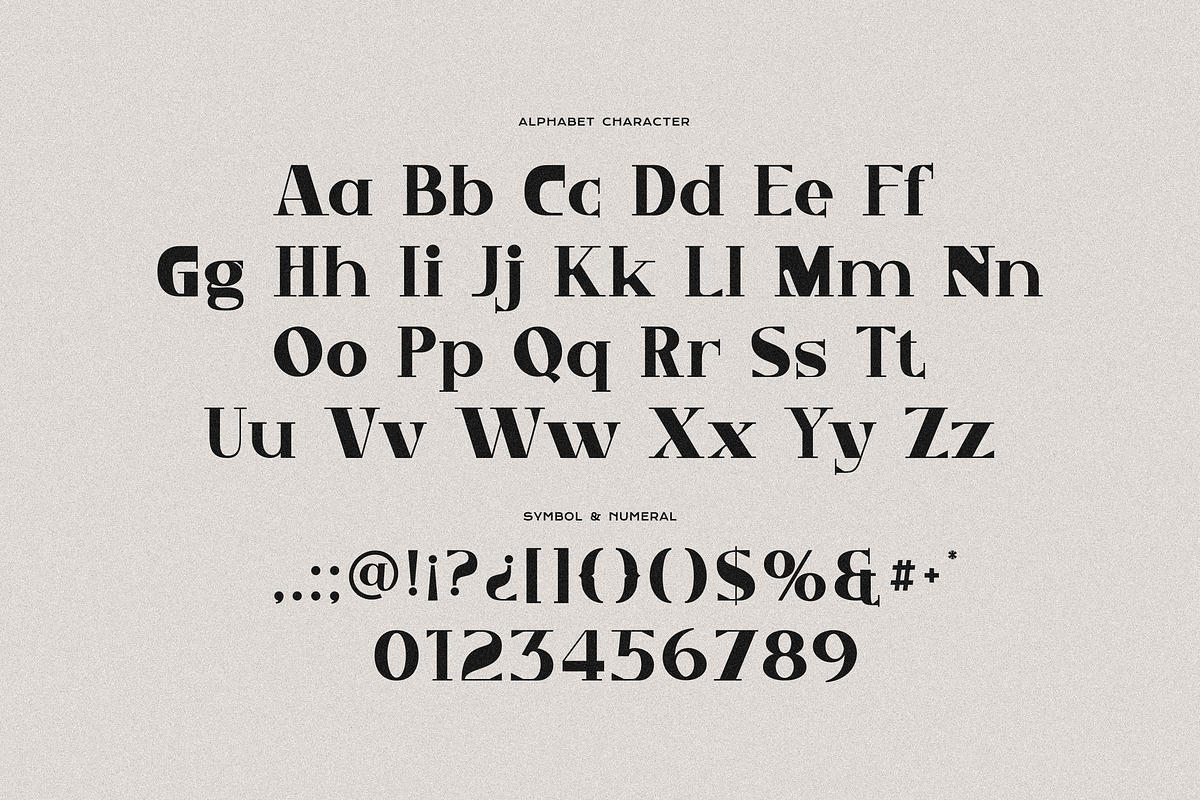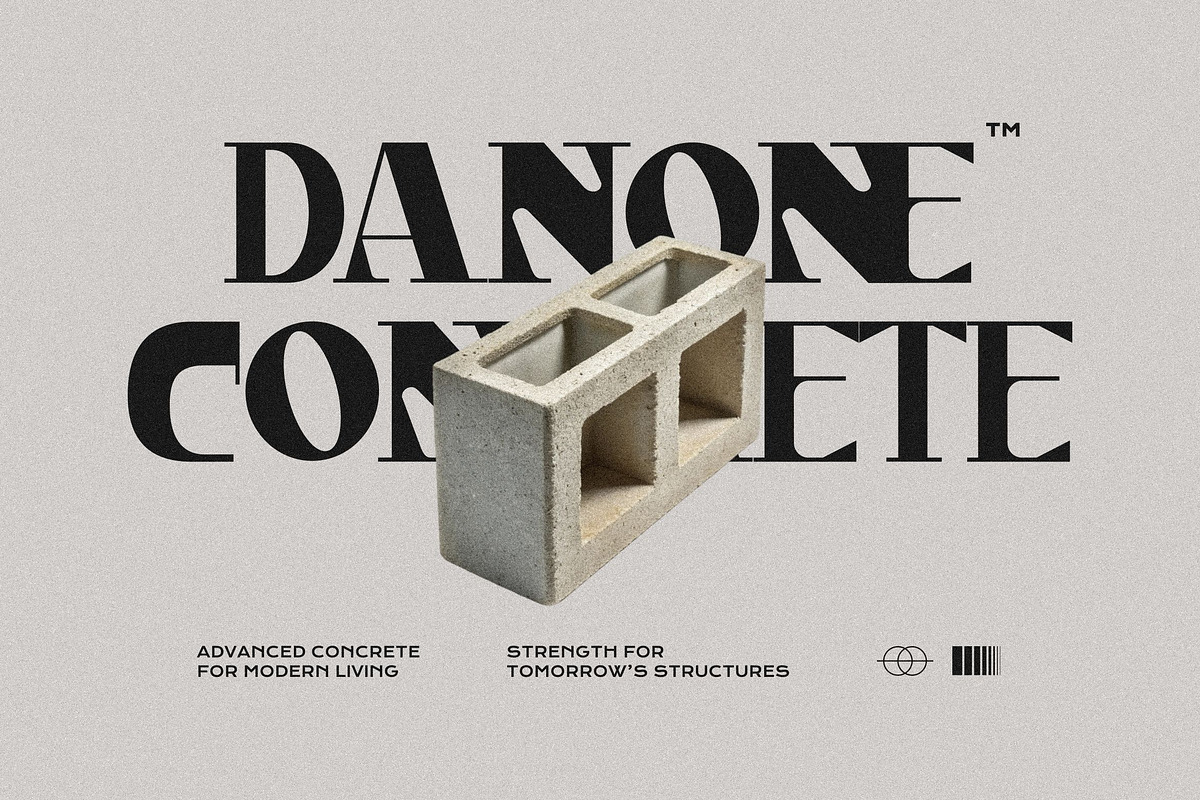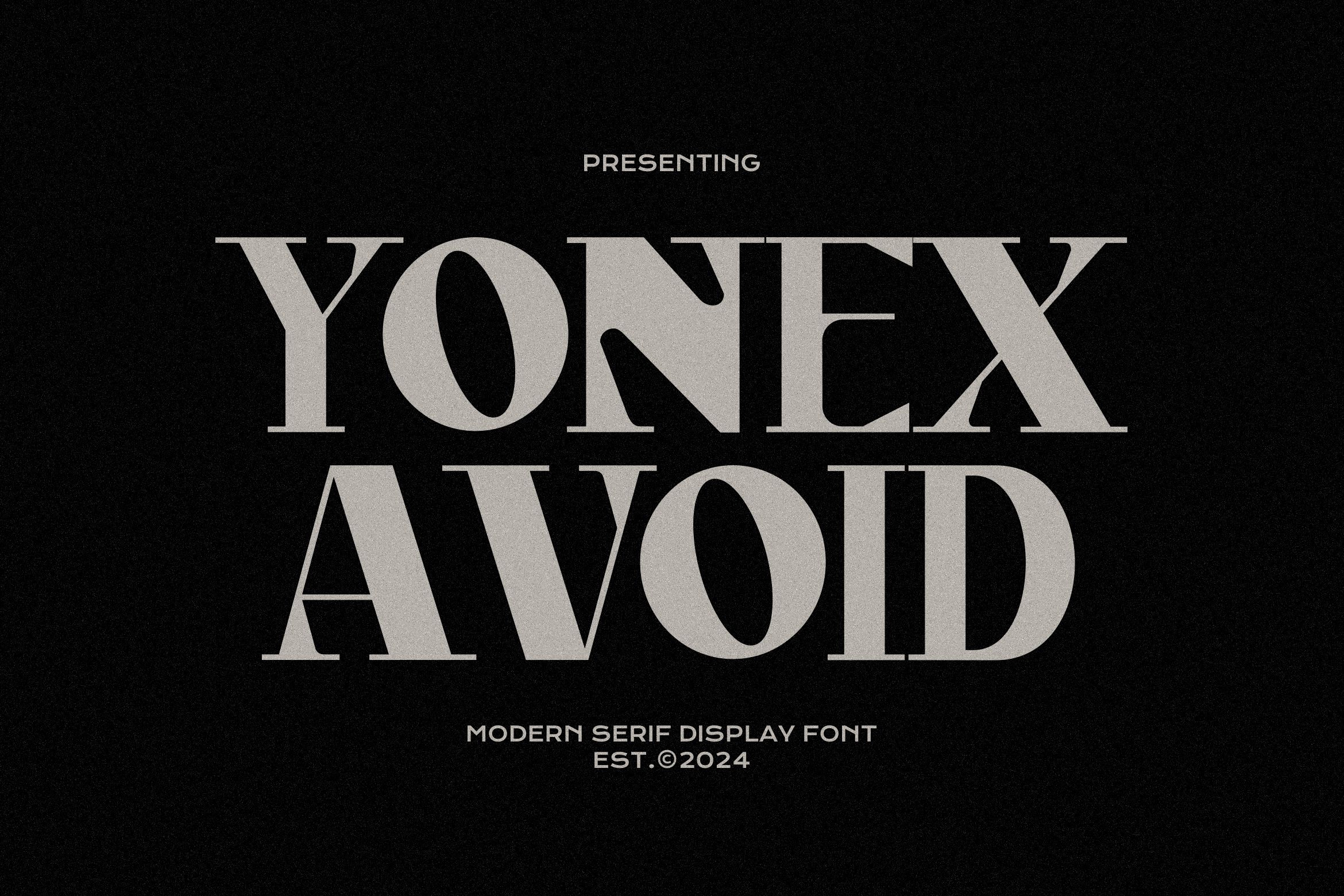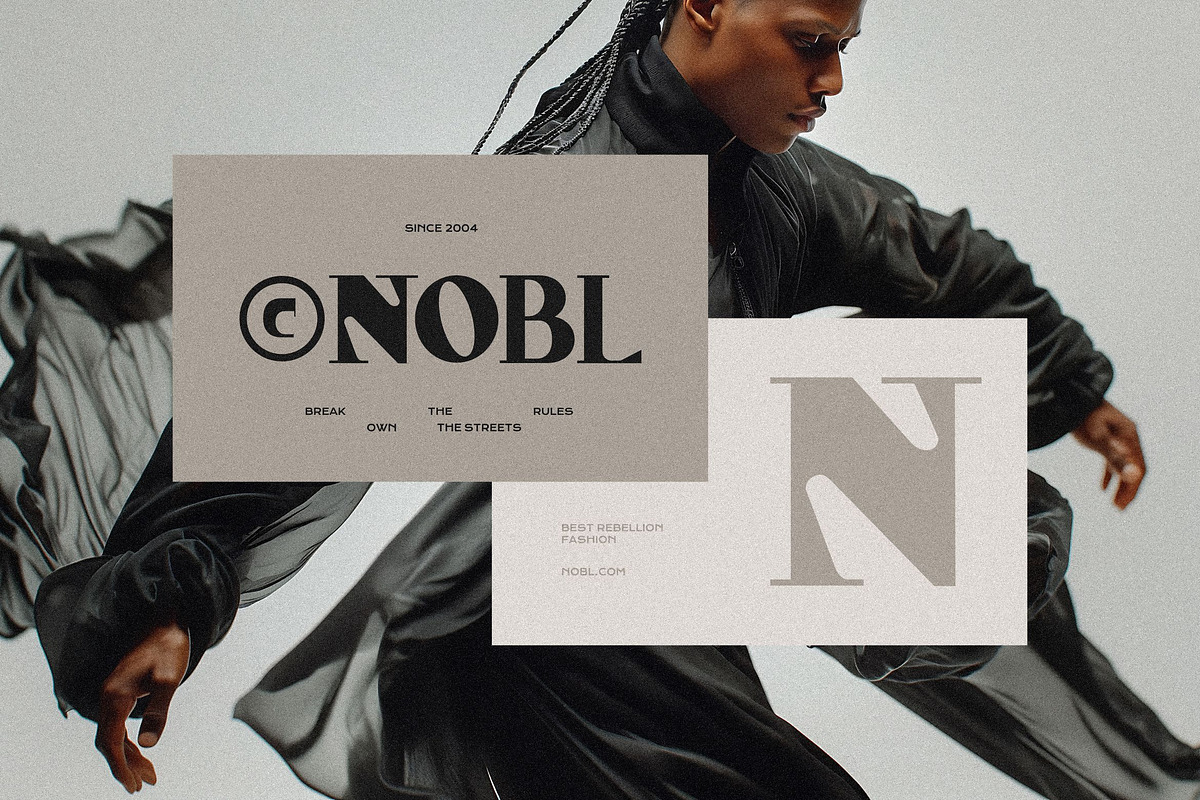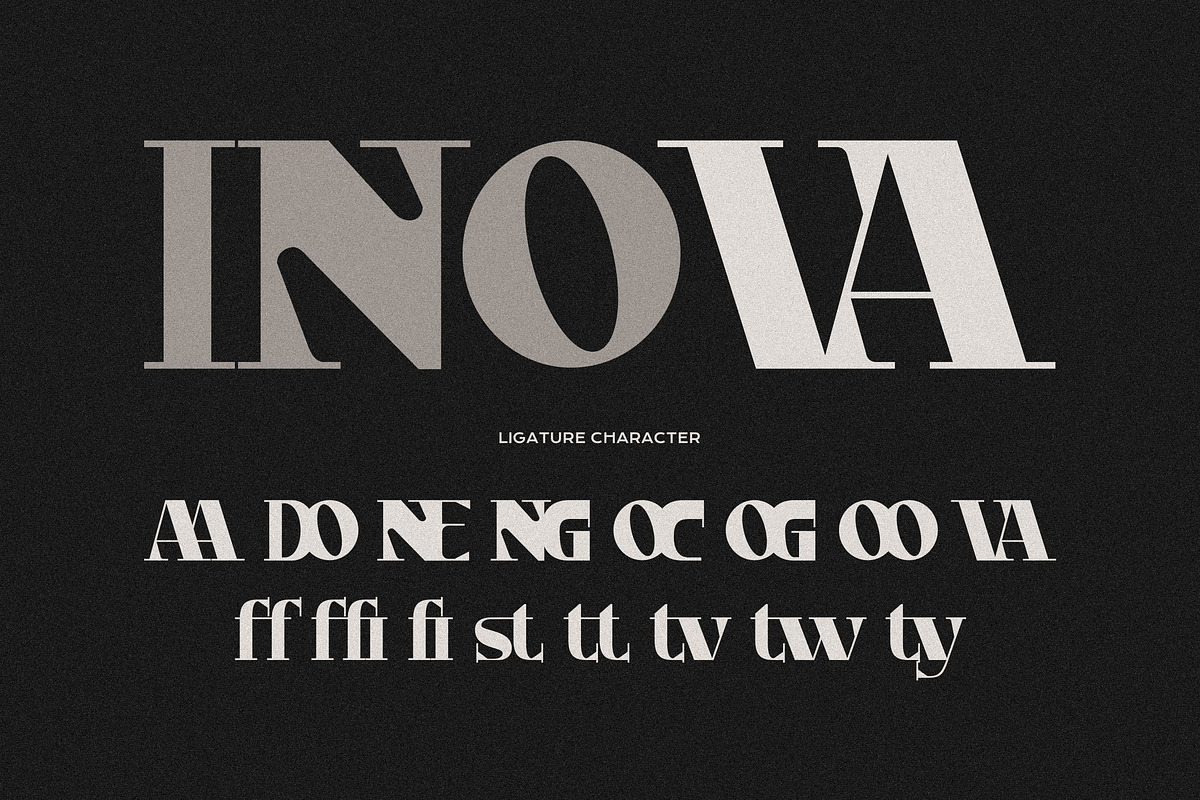
Yonex Avoid - Bold Serif Font
Yonex Avoid is a bold serif font that harmoniously blends traditional serif elements with contemporary flair, highlighted by strong vertical geometric forms and striking thick-to-thin transitions. Its unique details on terminals and joints add a dynamic yet elegant touch.
This font is perfect for luxury branding, editorial headlines, fashion campaigns, art deco, magazine, editorial, modern branding with an urban, rebellious edge, branding that aims to communicate robustness, reliability, and sophistication, modern packaging, advertising materials. Ideal for big titles, branding, editorial design, packaging, fashion, industrial, architectural, and creative branding sectors.